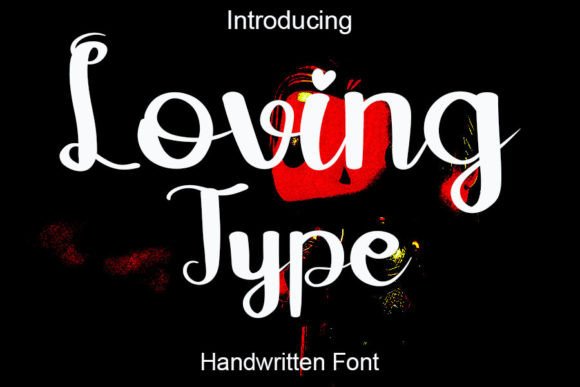
Introducing Loving Type Font, the ultimate calligraphy masterpiece that will ignite your creativity and leave you breathless. This enchanting script font, meticulously crafted by the talented putrasyahreza00, exudes an aura of elegance and sophistication that is simply irresistible.
With its graceful curves, delicate swashes, and heartfelt charm, Loving Type Font will bring a touch of romance and allure to all your creative endeavors. Imagine the possibilities - from heartfelt wedding invitations and captivating logos to trendy apparel and eye-catching social media posts. The possibilities are endless, and the results will be nothing short of spectacular.